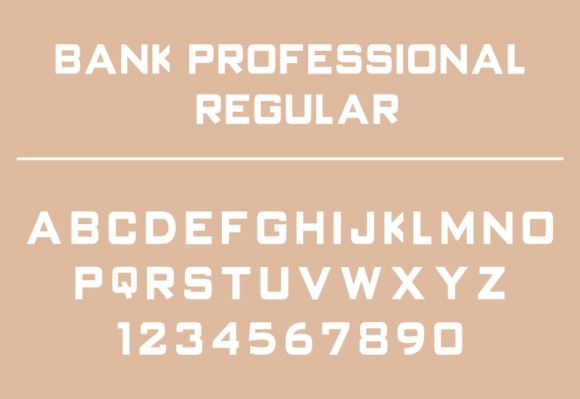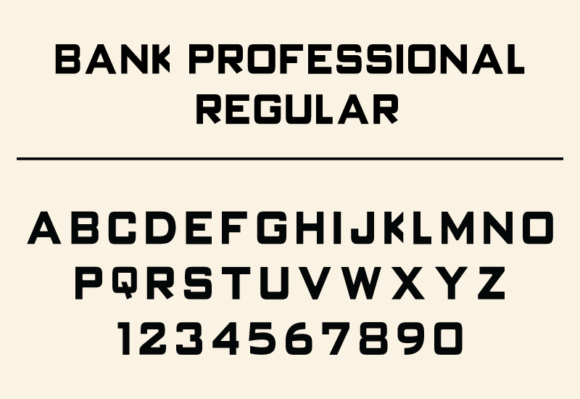
The Designer’s Delight: Bank Professional Regular Font
I’ll never forget the time I was working on a branding project for a high-end fashion label. My client was particular about the font, wanting something that exuded elegance and sophistication. I scoured the internet, tried out countless fonts, but nothing seemed quite right. That was until I stumbled upon Bank Professional Regular. It was like a breath of fresh air – sleek, modern, and effortlessly chic. In this article, I’ll share my love for this beautiful font, its features, and how to make the most of it in your designs.
- ✨ **Elegant and Sophisticated**: Bank Professional Regular boasts a sleek, minimalist style that instantly elevates any design.
- ✅ **Excellent Legibility**: Its clean, unadorned letterforms make it perfect for use at any size, whether you’re designing a logo, a brochure, or a website.
- 💻 **Versatile**: This font is ideal for a broad range of design projects, including branding, editorial, and digital media.
While Bank Professional Regular is an excellent font, there are a few things to keep in mind:
- 🤔 **Limited Extras**: This font is relatively straightforward, which means it doesn’t come with a wealth of extra features or variations.
- ⚠️ **Not Suitable for Body Text**: While it’s legible, Bank Professional Regular is better suited for headlines and titles rather than long blocks of text.
One of the best things about Bank Professional Regular is its support for OpenType features. This means you can access a range of glyphs and stylistic alternates to add some extra flair to your designs. For example, you can use:
- Ligatures to create beautiful, flowing connections between letters.
- Stylistic alternates to add some variation to your text.
The story behind Bank Professional Regular is one of meticulous design and a passion for elegance. The font was crafted by a team of designers who wanted to create a typeface that would serve as a bridge between modern minimalism and classic sophistication. Inspired by the clean lines of modern architecture and the elegance of high-end fashion, Bank Professional Regular was born out of a desire to create a font that would be both versatile and beautiful.
| Font Name | Bank Professional Regular Font |
| Author | GraphicsNinja |
Q: Is Bank Professional Regular suitable for body text?
A: While it’s legible, Bank Professional Regular is better suited for headlines and titles rather than long blocks of text.
Q: Does Bank Professional Regular support OpenType features?
A: Yes, Bank Professional Regular supports OpenType features, including ligatures and stylistic alternates.